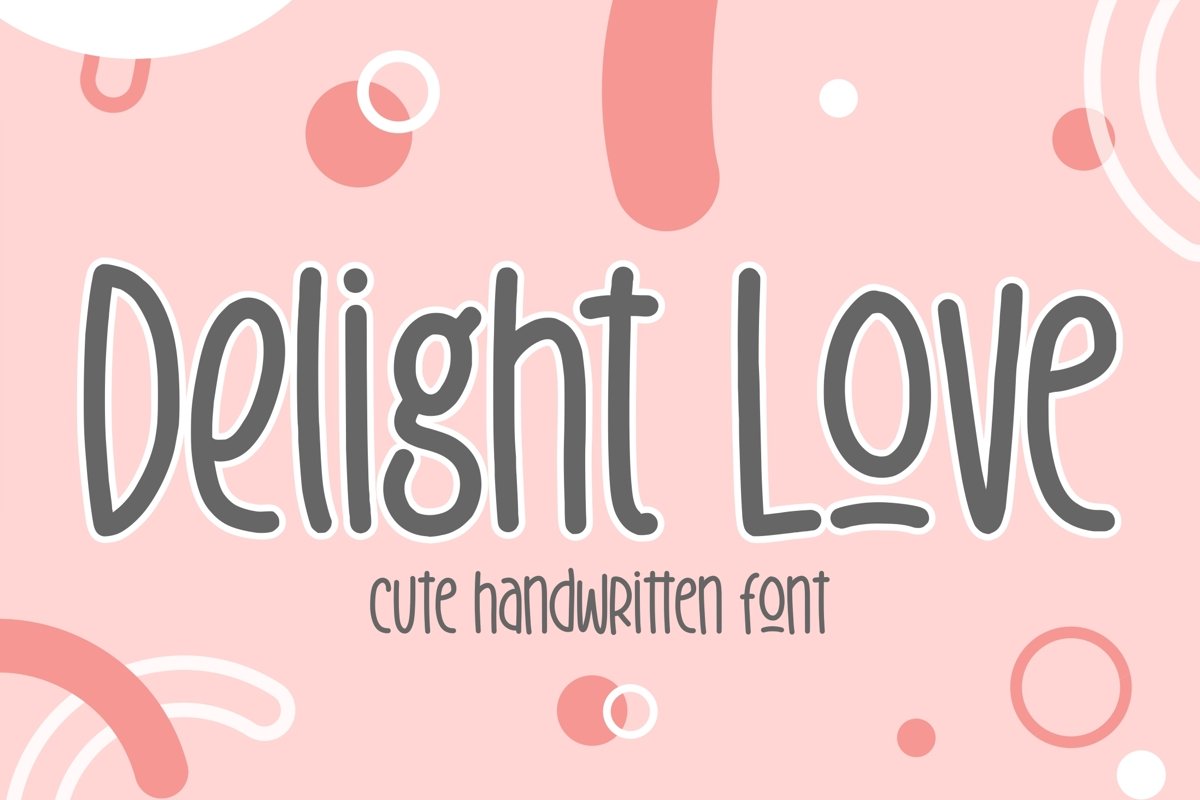
Deligh Love
Delight Love
Deligh Love typeface born from original and natural hand-lettering in the paper with bold point and pen; delivering a stylish typeface that is guaranteed to add naturality styles and taste appeal to your logo designs, brand imagery, quotes, product packaging, merchandise & social media posts.
• Uppercase & Lowercase letters
• Multilingual Support with the accent.